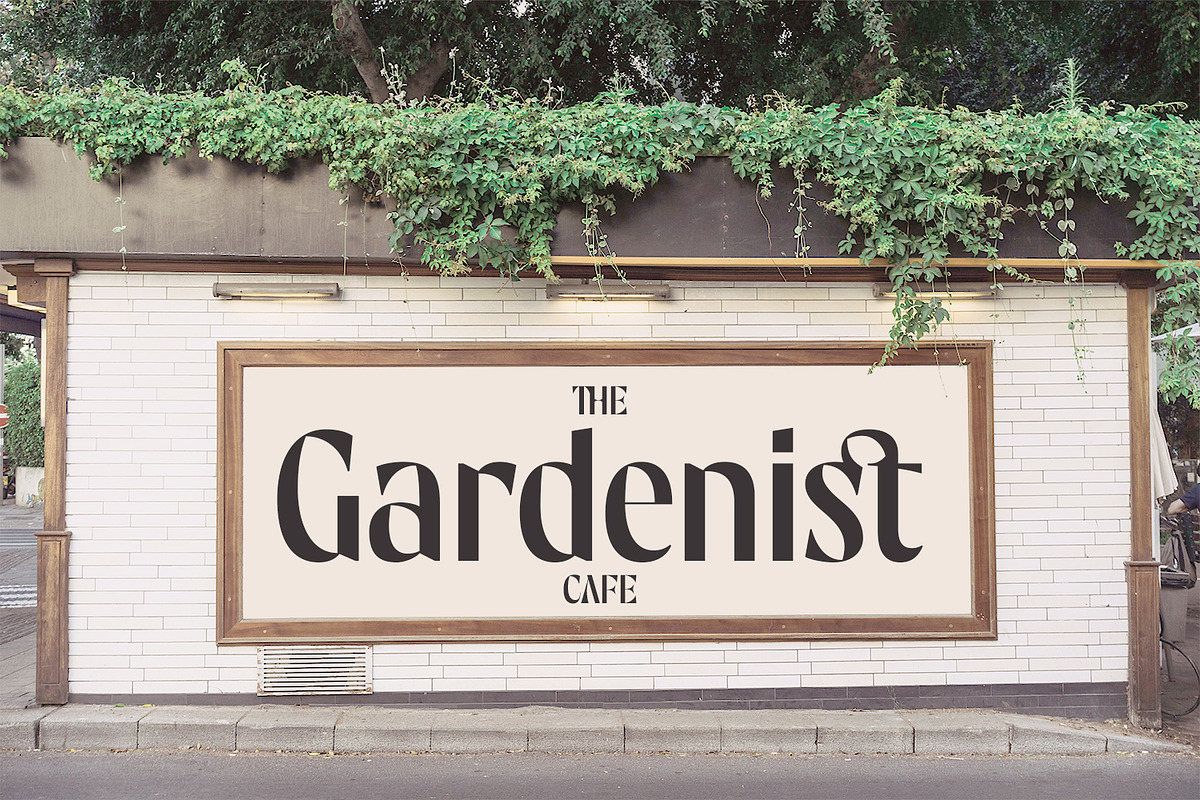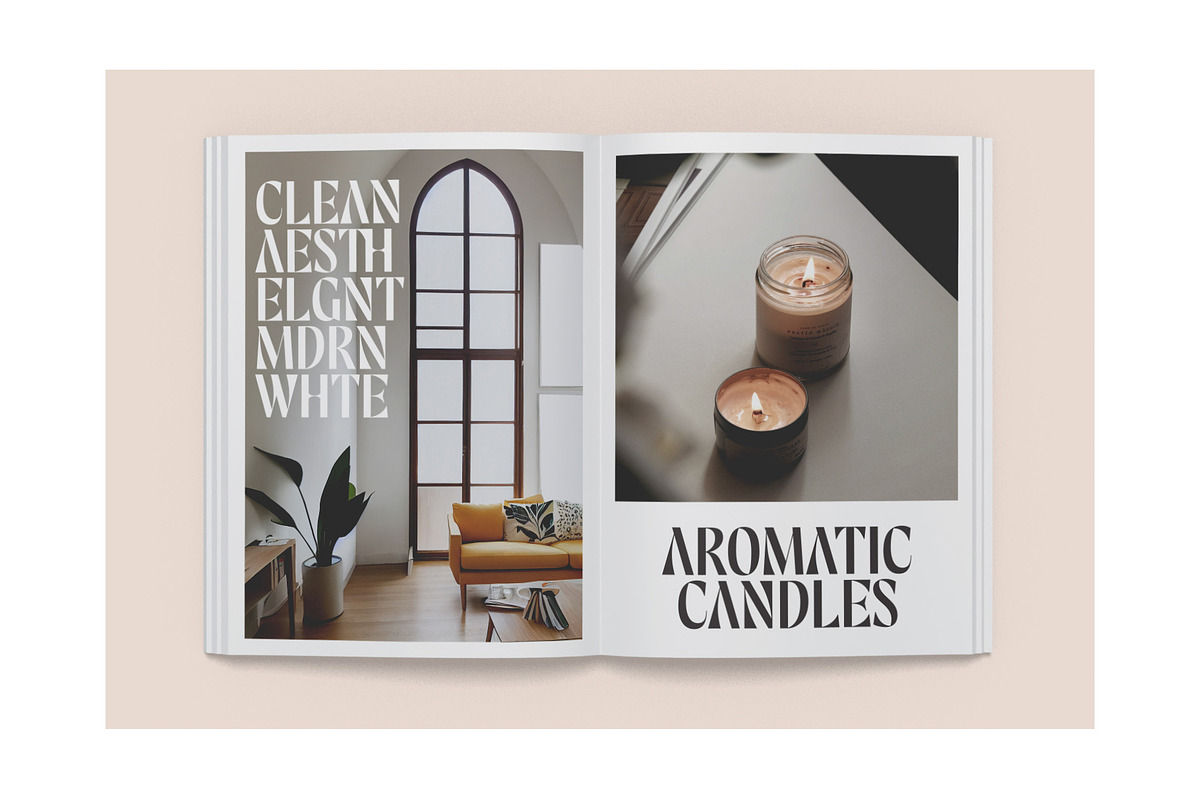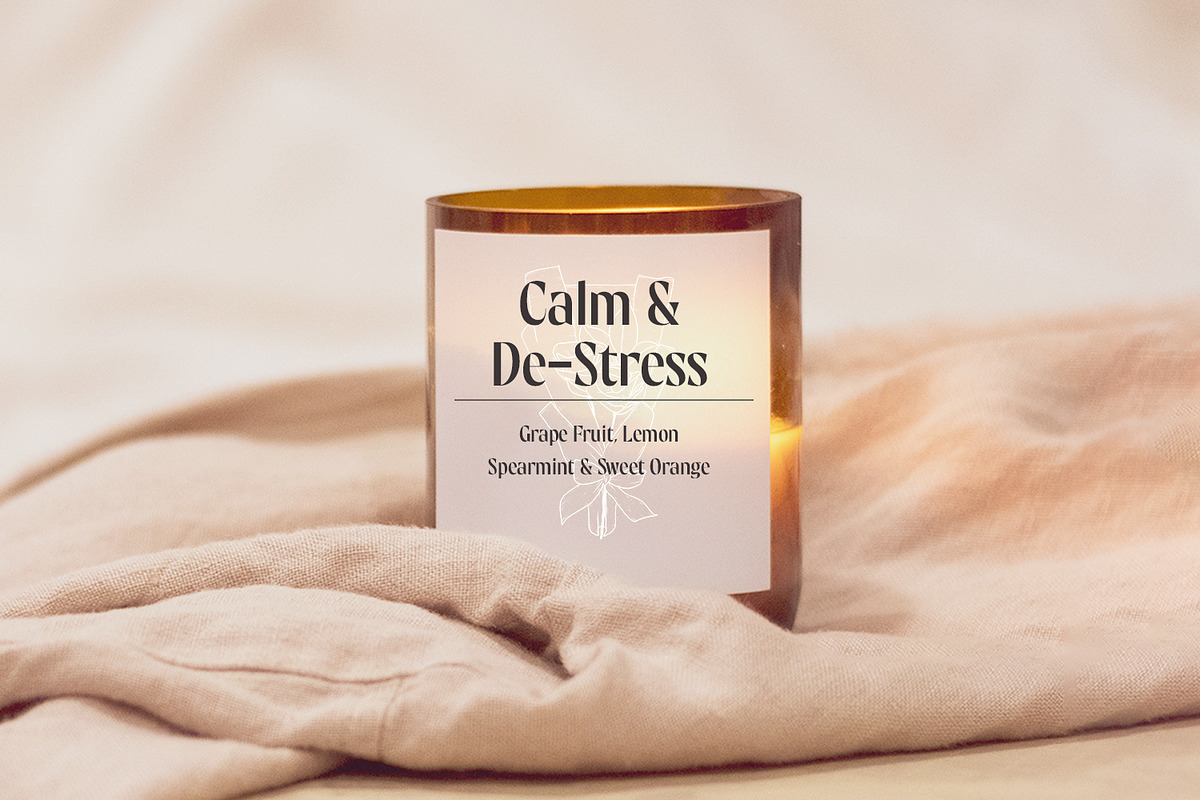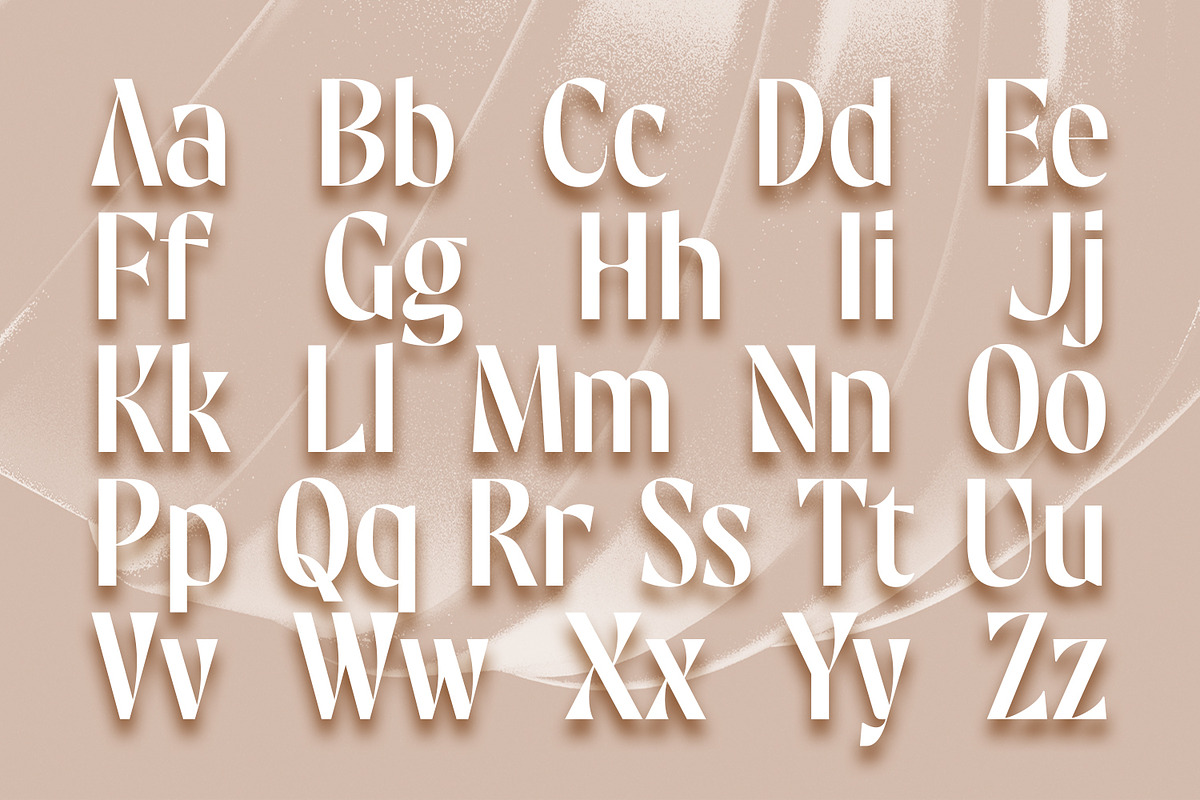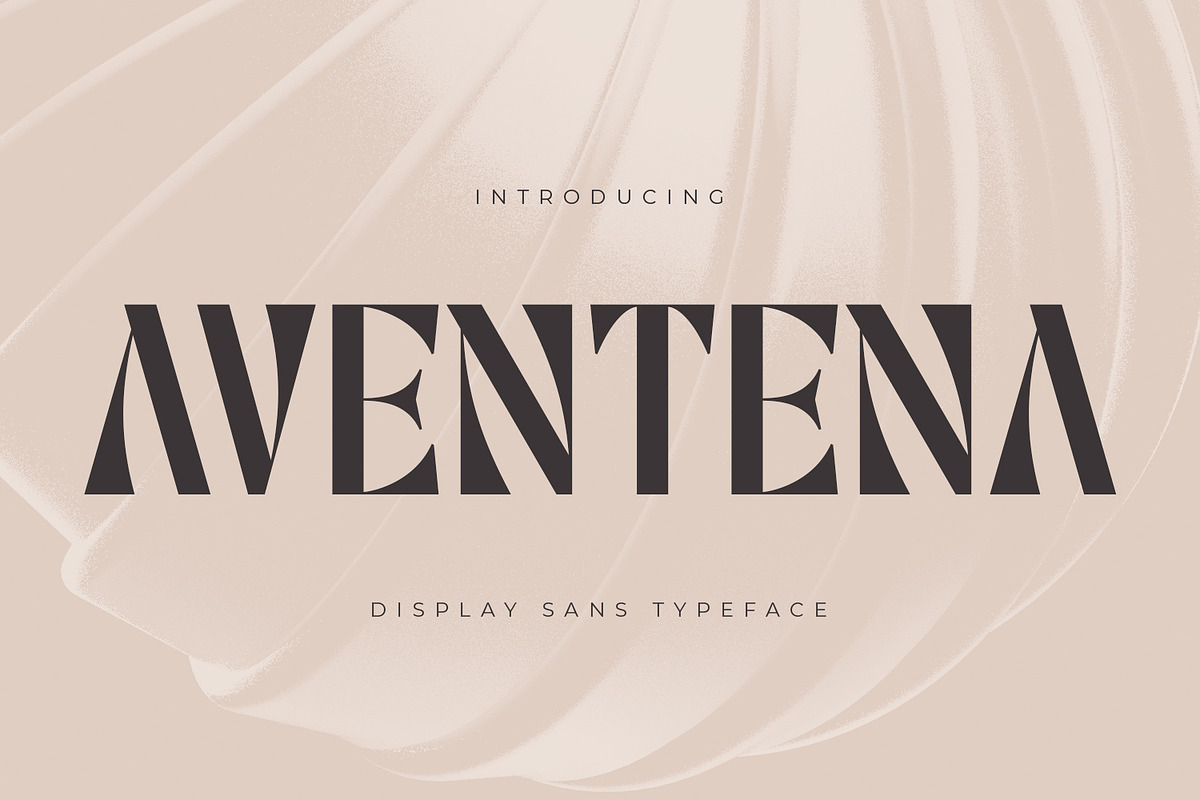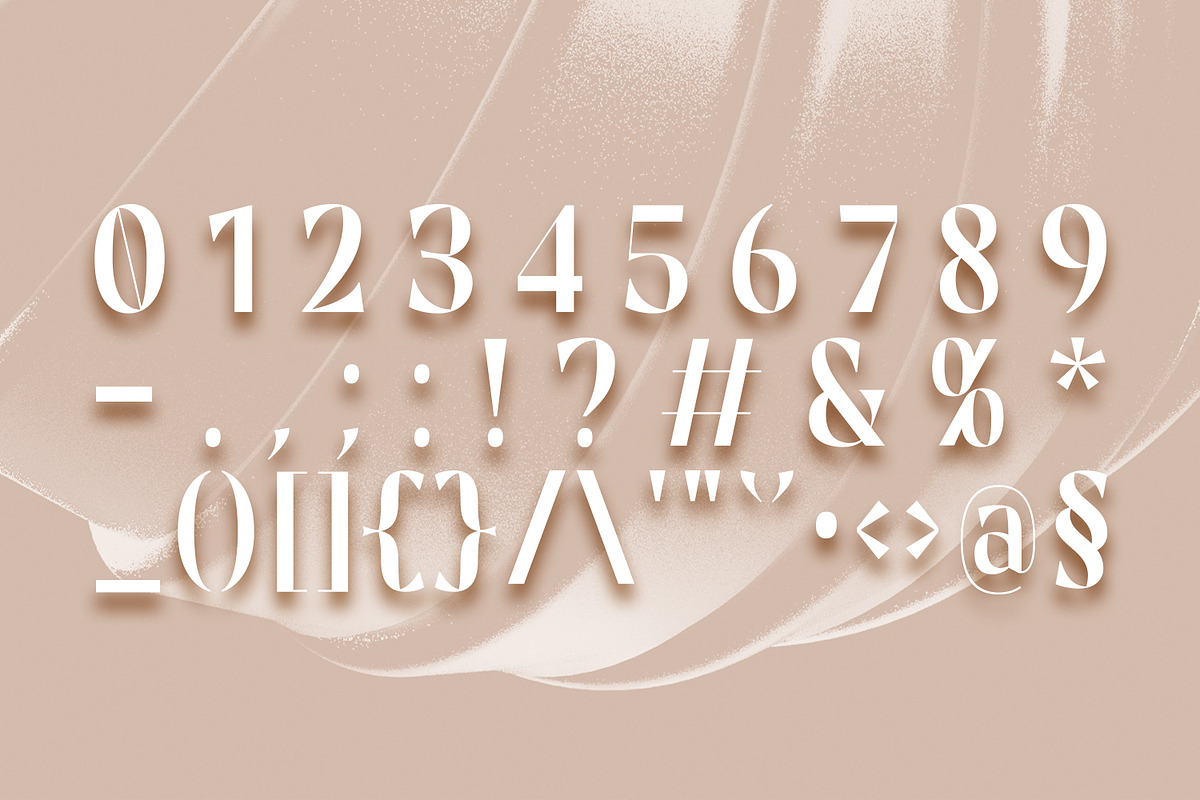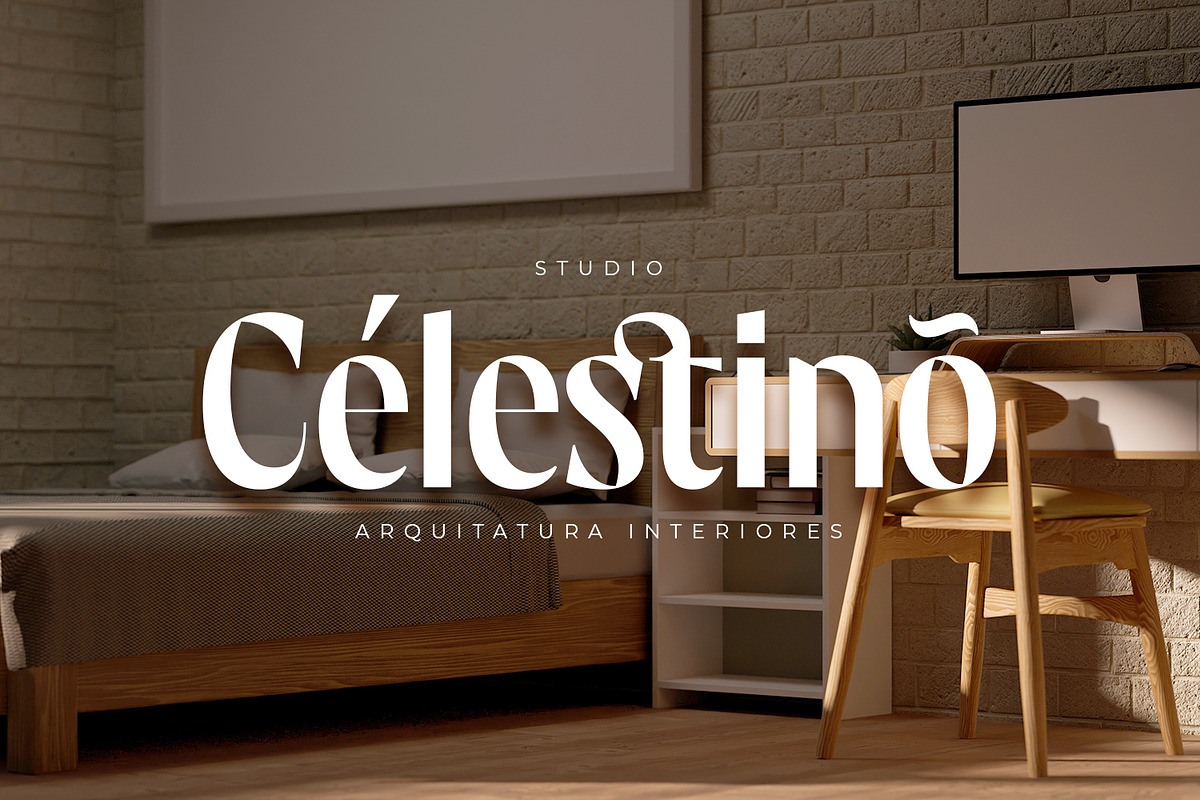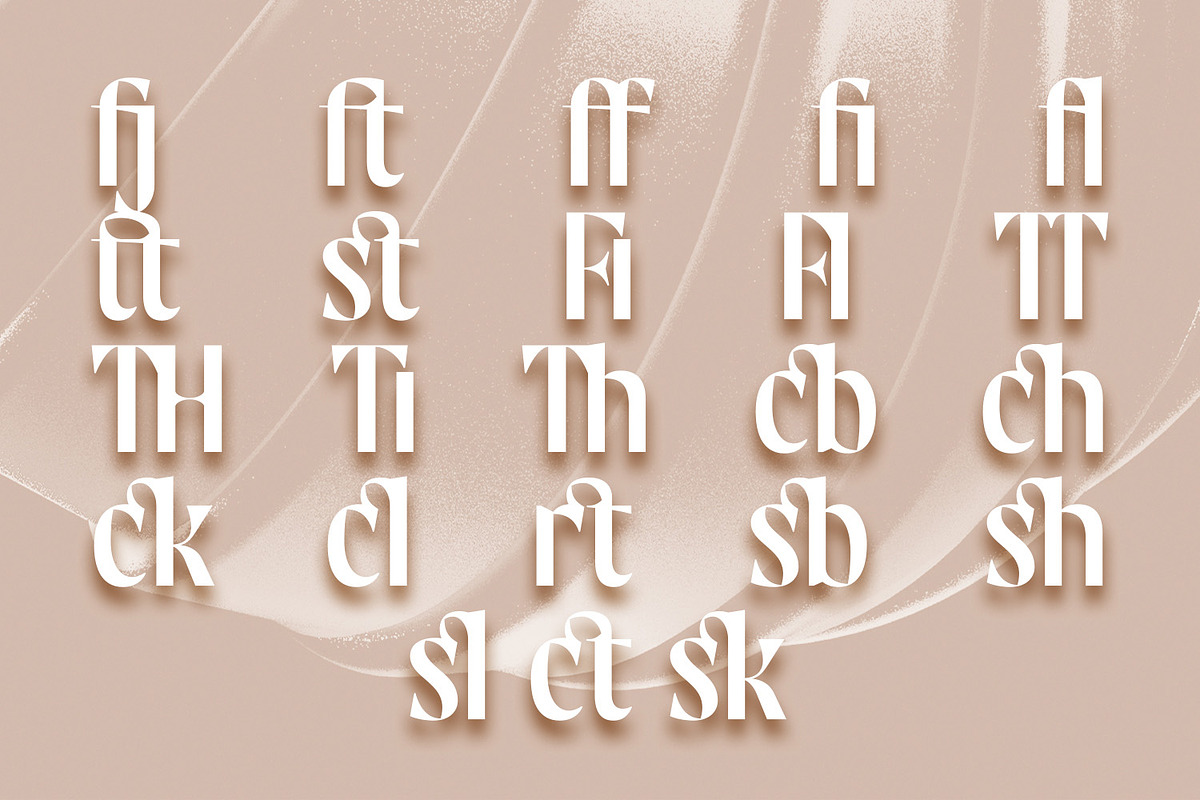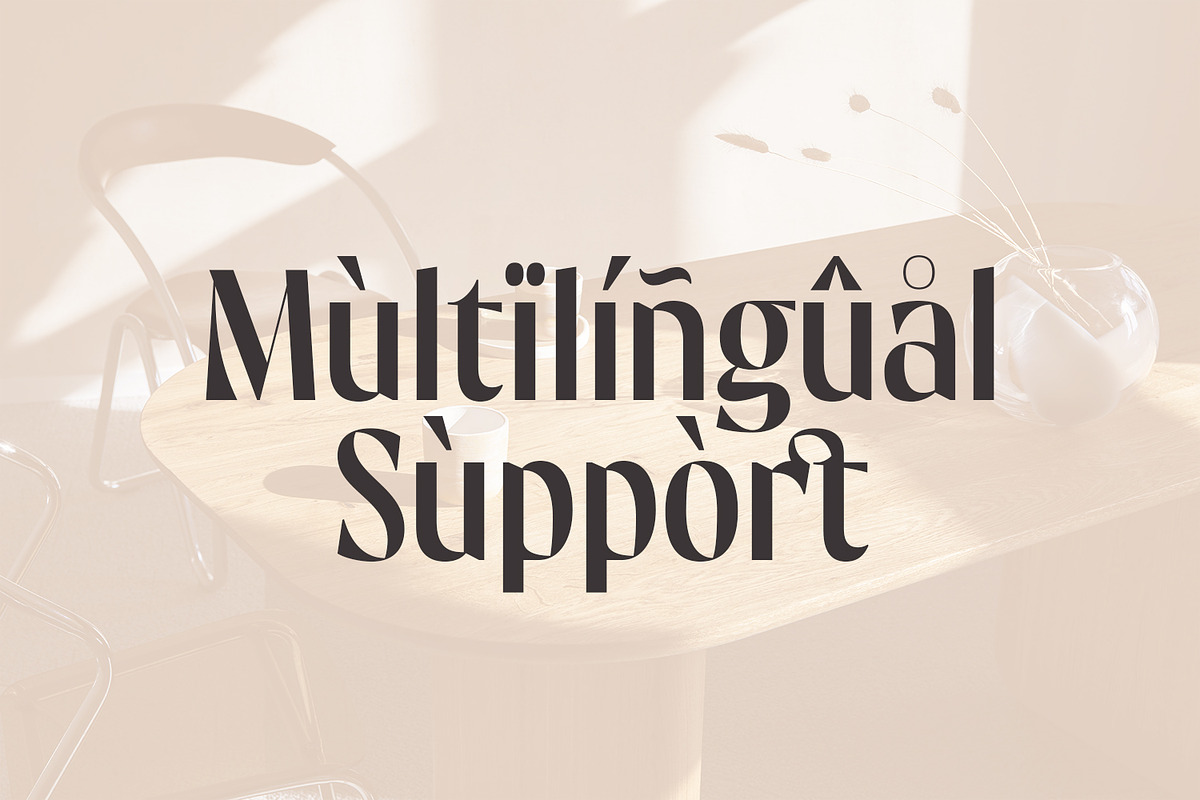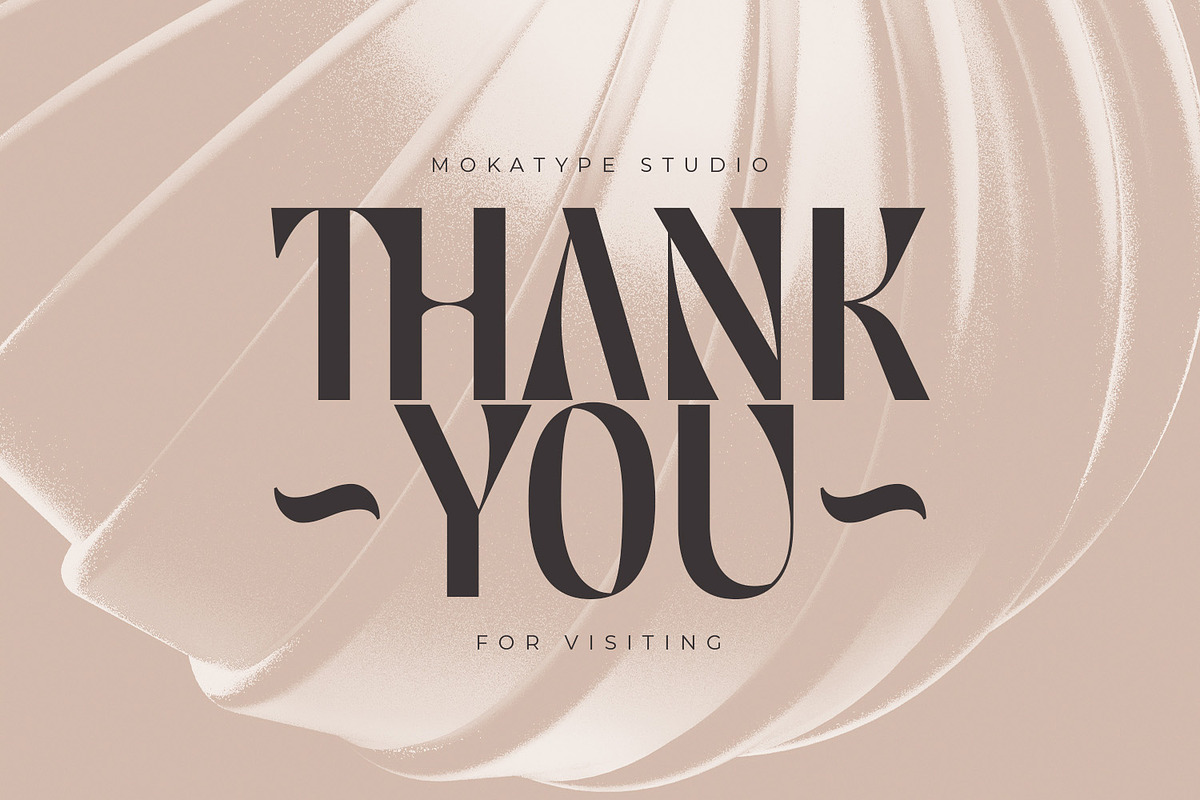
Aventena - Display Sans
Aventena is display sans, inspired by blackletter basic writing system. There is a lot of twist from the basic form, that makes Aventena look simple and yet legible. So you can explore, combine, and create designs such as posters, headlines, interfaces, merch, etc. This is single-weight font only, this font is better used for headlines. If you need a multi-weight of this font, just tell us!
- Ligatures (Opentype features)